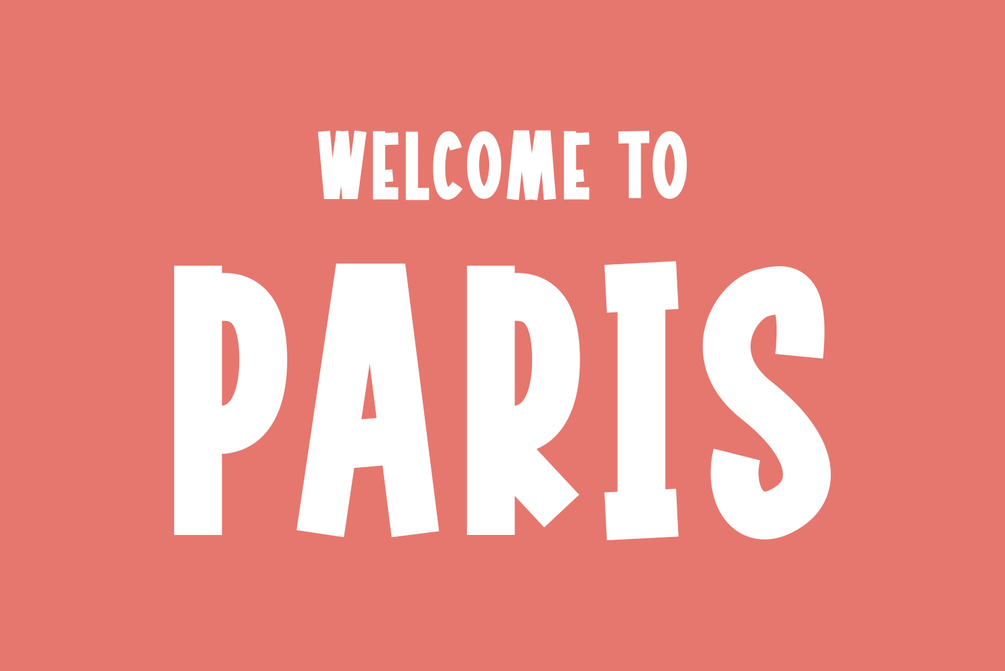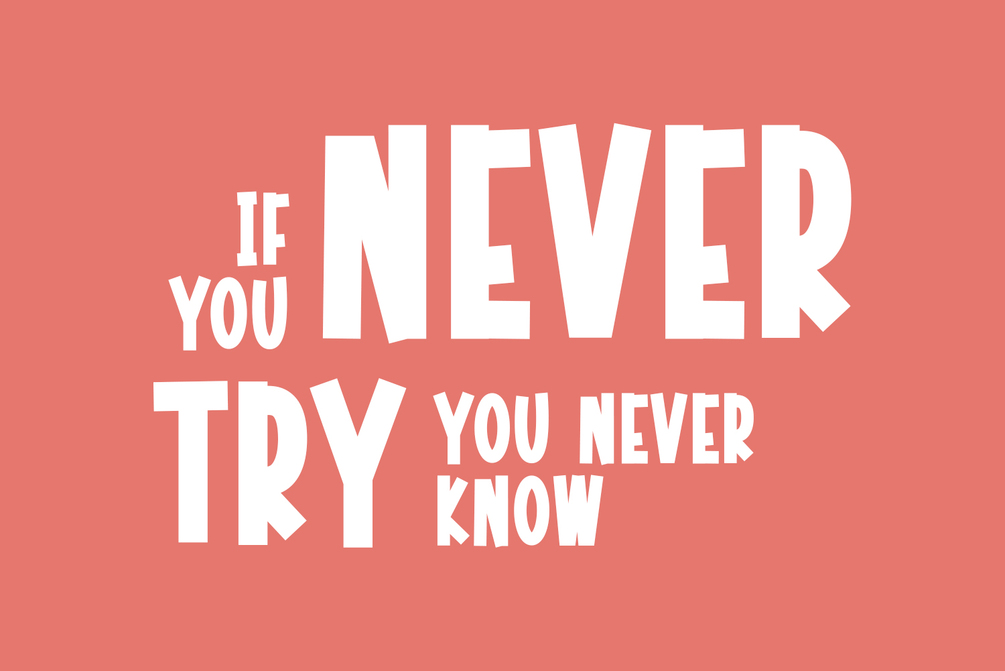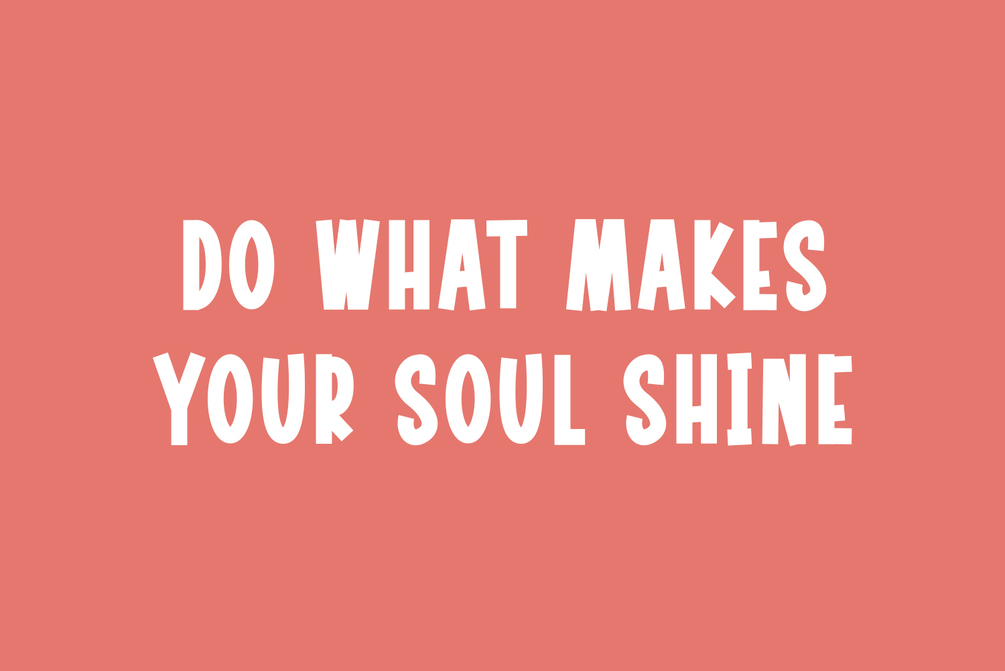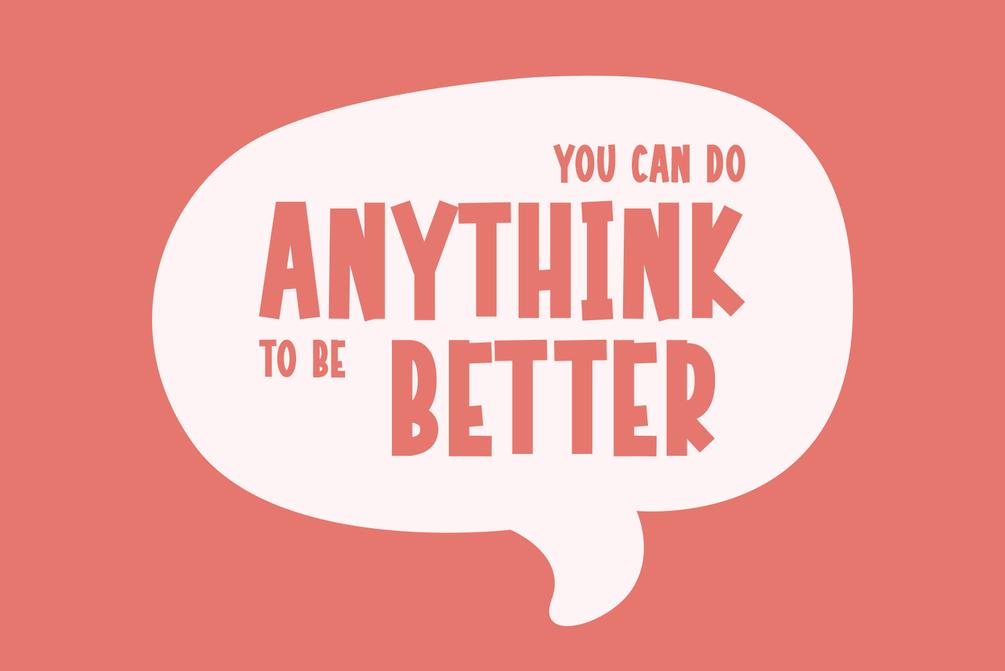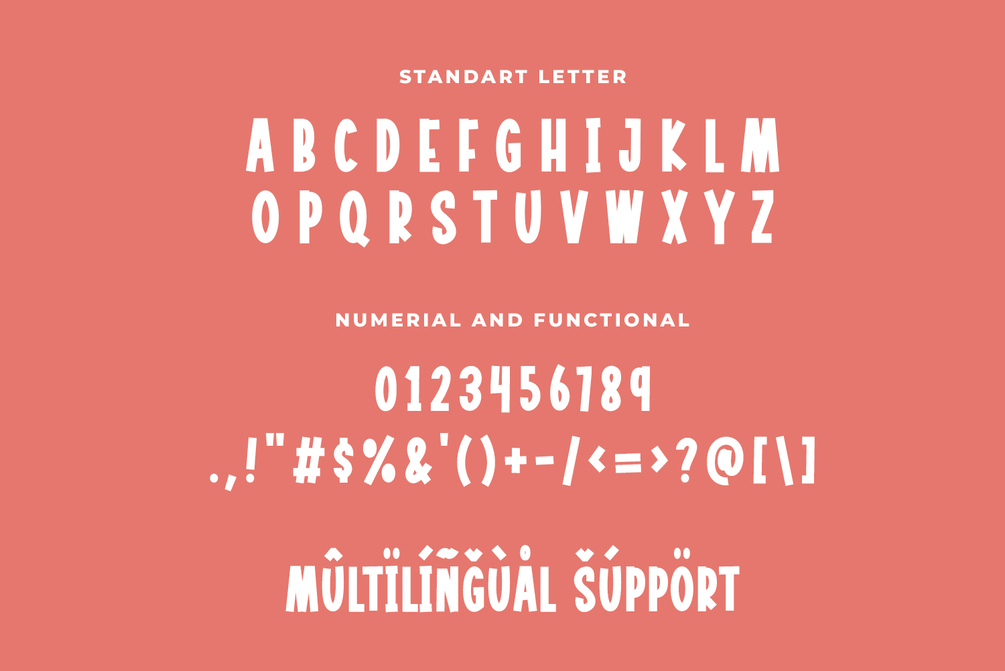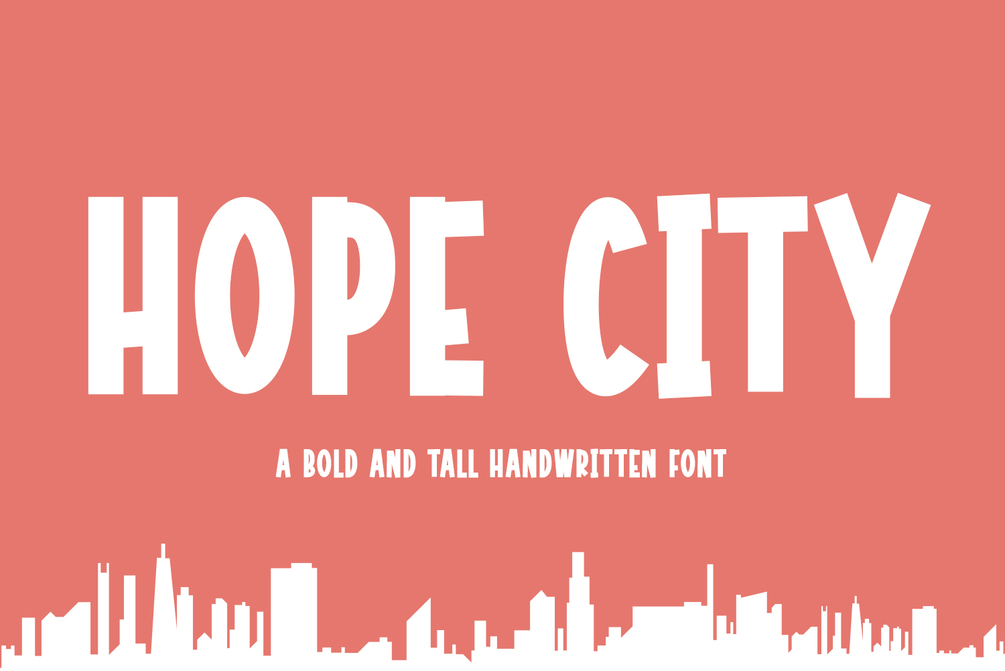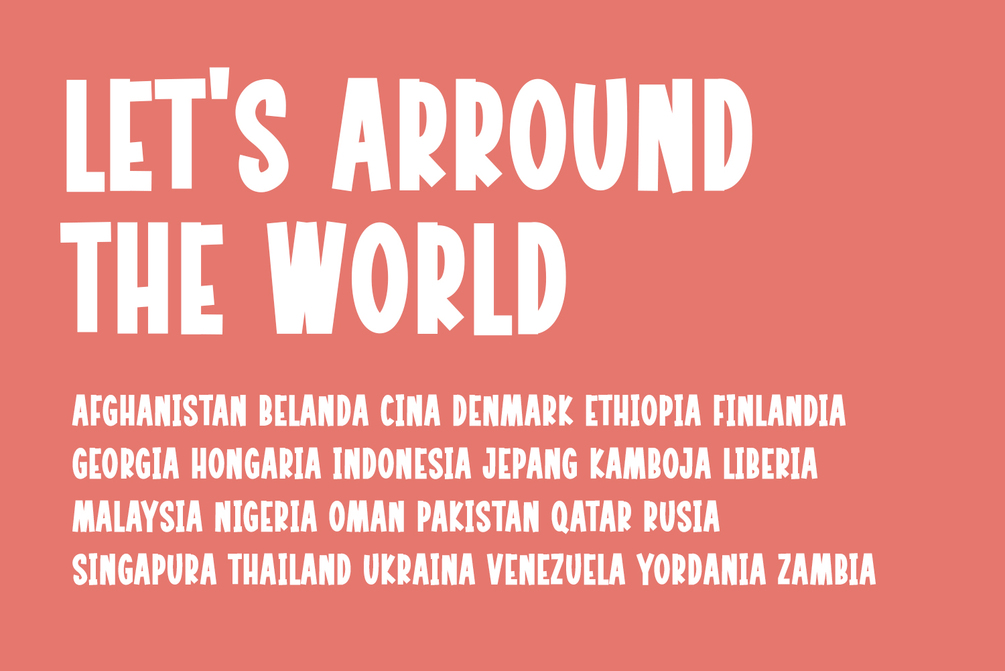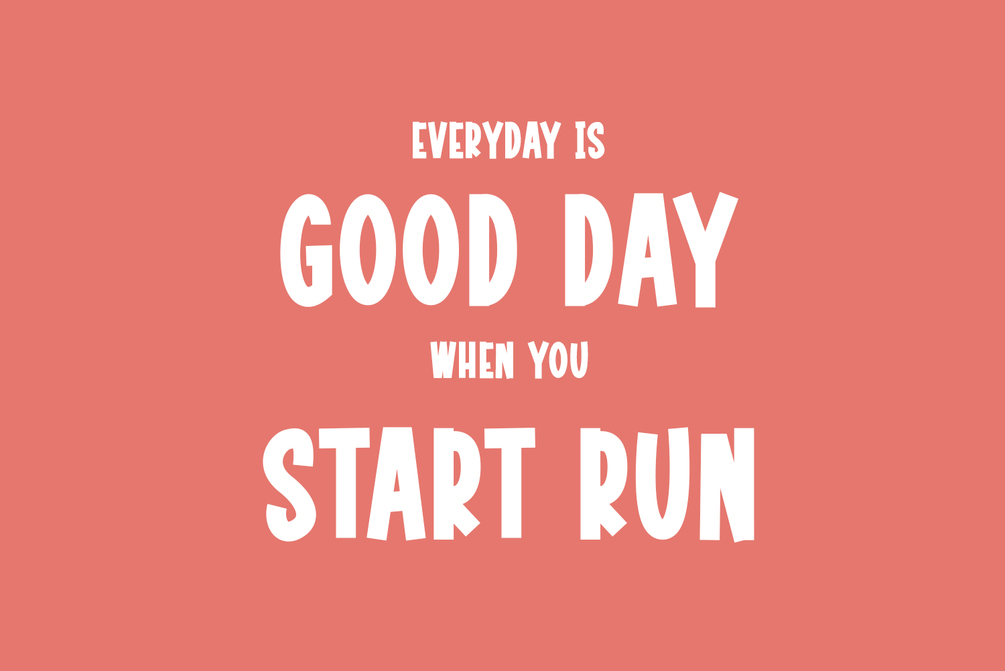
Hope City A Bold and Tall Handwritten Font
introducing a new bold handwritten font is Hope City. Hope city is modern look, tall, bold, child and joyful. This font suitable  for logos, packaging designs, posters, business card, cover, broadcast, quotes, books, etc. Let's we go, to make you business go to next level with Hope City.
Features
• Standart Letter A-Z
• Numberial
• Functional
• Multilinggual support